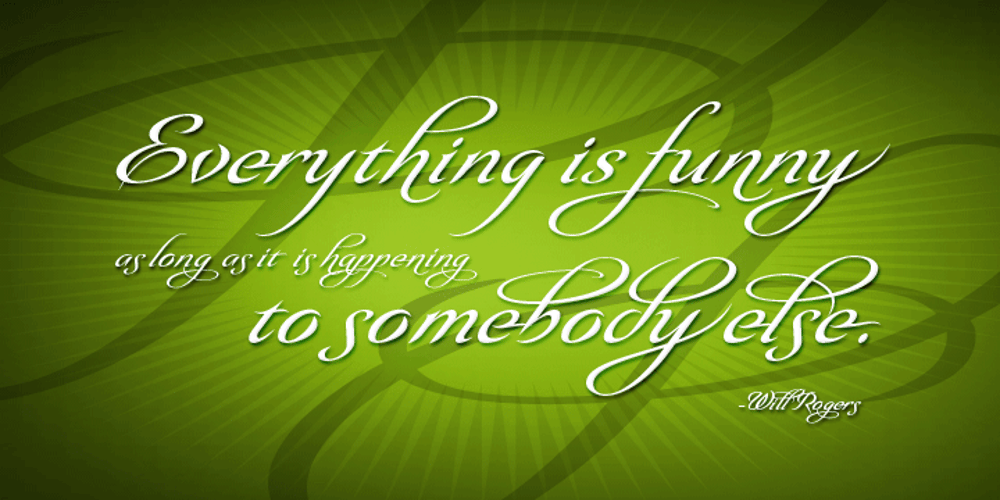
Olidia Font Family was designed by Jeremy Dooley and published by insigne. Olidia contains 3 styles and family package options. Olidia is a script with tall sweeping ascenders packed with alternates and ligatures. Olidia Pro includes over 40 alternate characters and 20 ligatures. This allows designers to mix and match characters to create luxurious and graceful custom logotypes and headlines in OpenType capable applications such as Adobe‚s CS suite or QuarkXpress. These alternates are also available in limited preset fonts that are available separately. Olidia Alternate One is highly ornamental, with plenty of sweeping ascenders and descenders, while Olidia Alternate Two is much more restrained and can be used for body copy. The Third strikes a balance between the two sets. Olidia Pro OpenType features include ending swashes, ornaments, ligatures, discretionary ligatures, titling alternates, contextual alternates, style sets and stylistic alternates. See the sample .pdf as a reference to quickly access desired alternate sets.